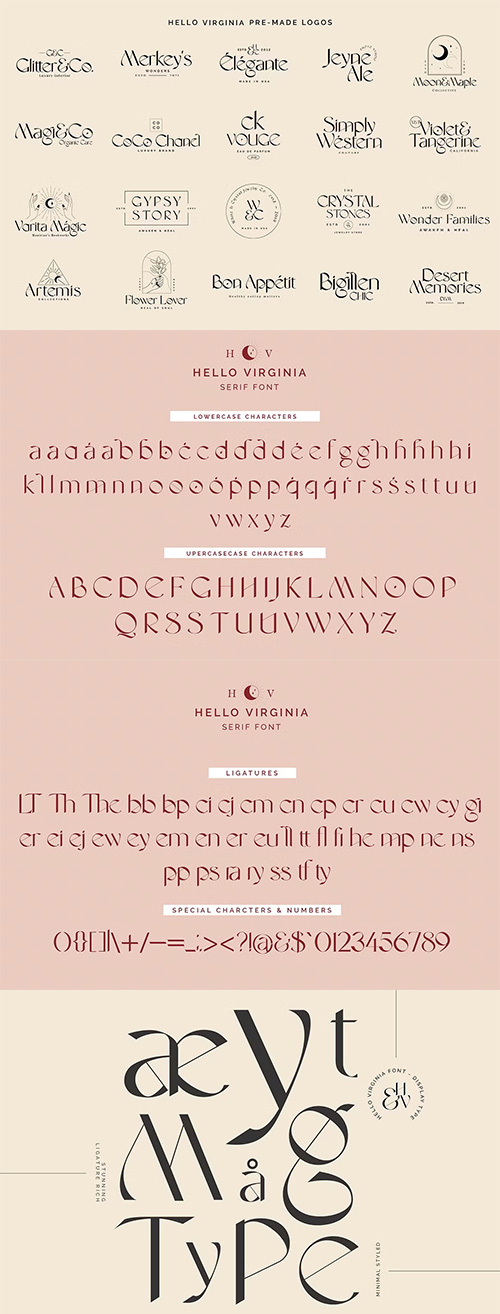
CM - Hello Virginia + 20 Free Logos 5851821
- With Stunning ligatures, minimal and stylistic Hello Virginia is a very adaptable font, that can be used for a wide range of project types, from elegant magazine mastheads, to wedding invitations, to branding, cards, web headers, poster design and so much more.